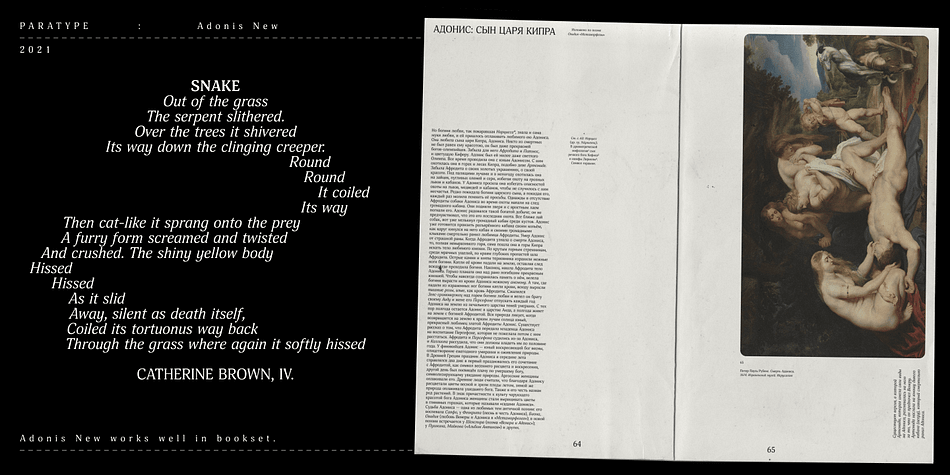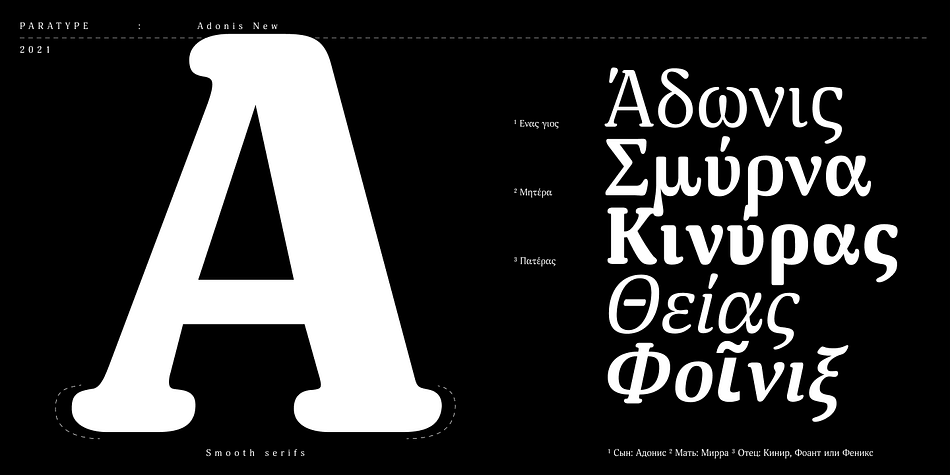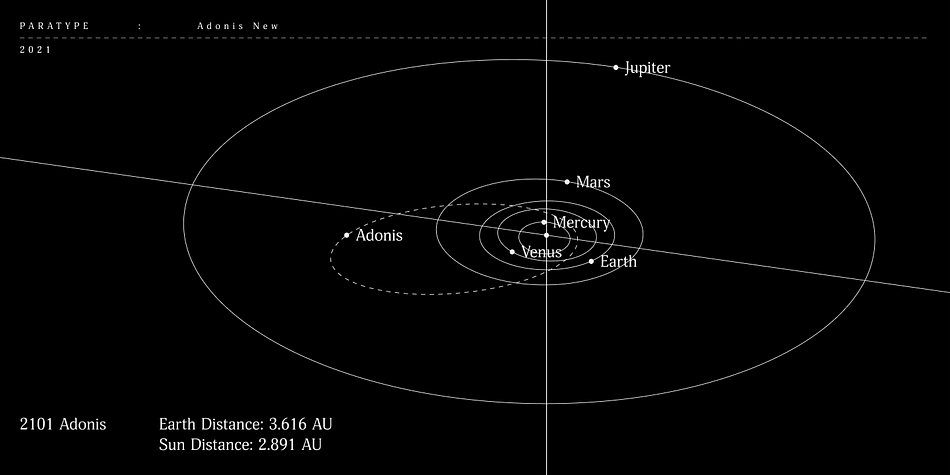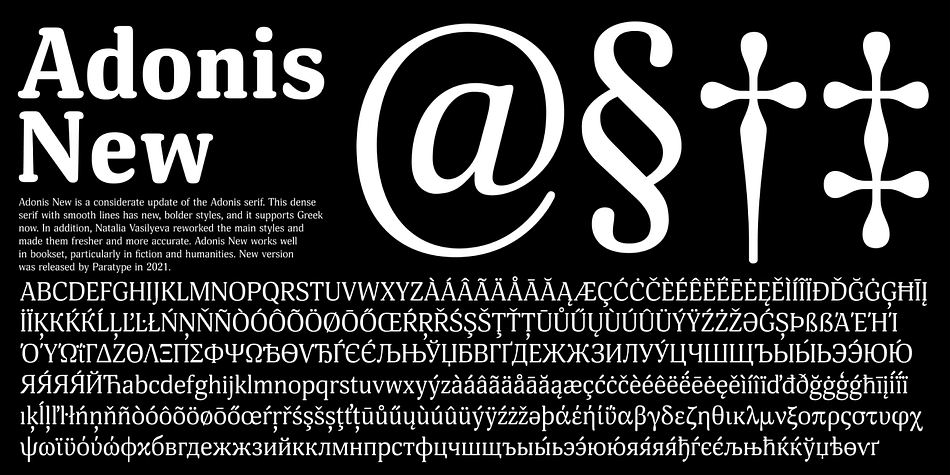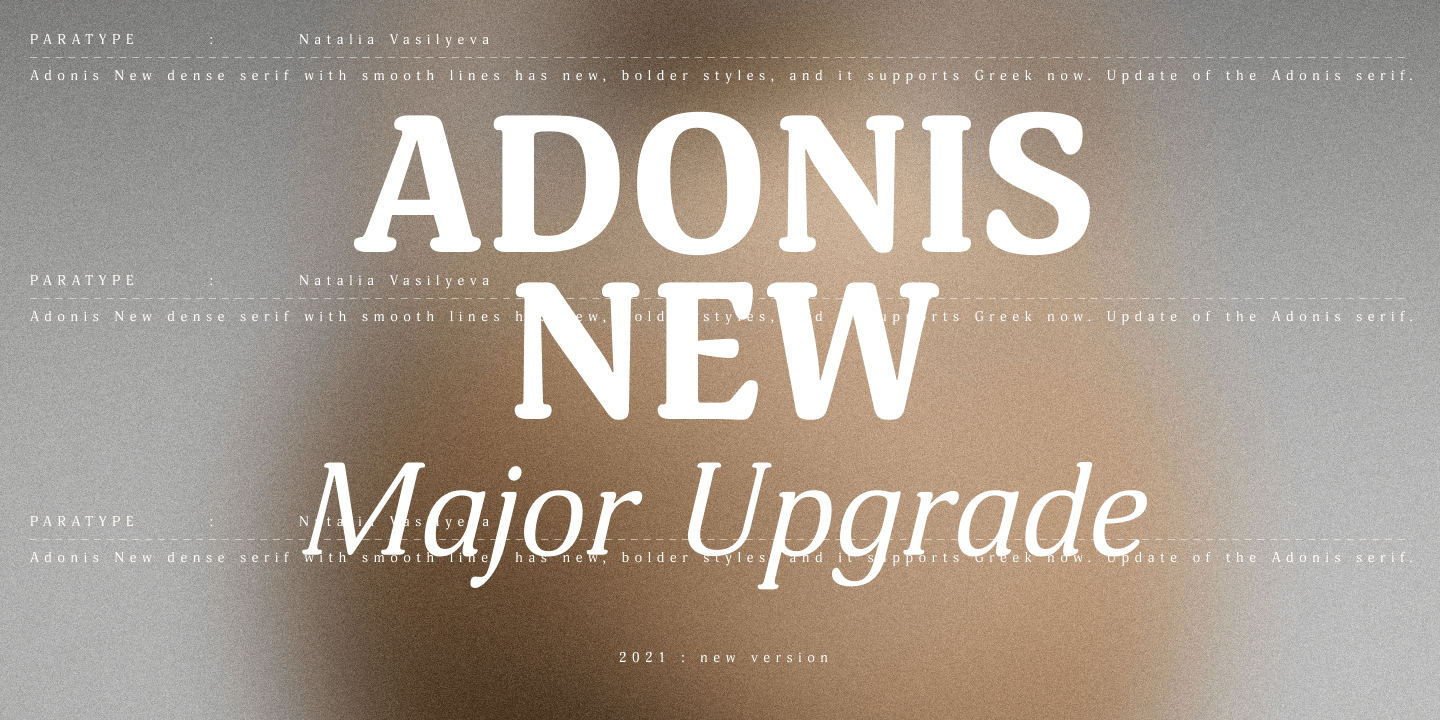
Adonis New
Designed by Natalia Vasilyeva, Adonis New is a serif font family. This typeface has six styles and was published by ParaType.
Adonis New is a considerable update of the Adonis serif. This compact serif with smooth lines has new, bolder styles, and it supports Greek now. In addition, Natalia Vasilyeva reworked the main styles and made them more accurate and up to date. Adonis New works well in book setting, particularly in fiction and humanities.